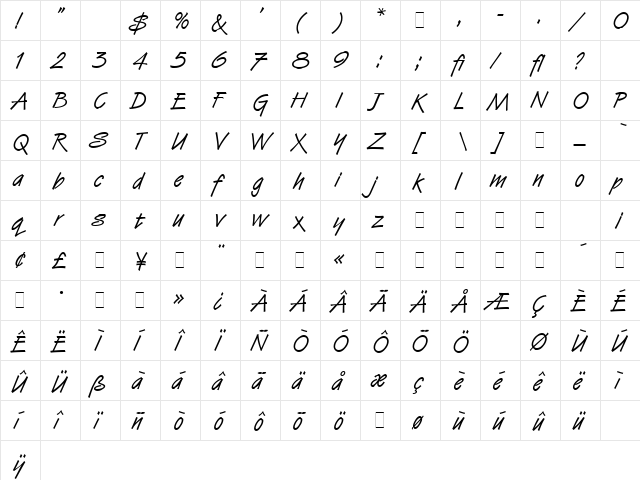
Van Dijk LET Plain
Design Context for Van Dijk LET Typeface
Van Dijk LET is a composed and adaptable typeface that performs quietly and consistently across a wide range of design contexts.